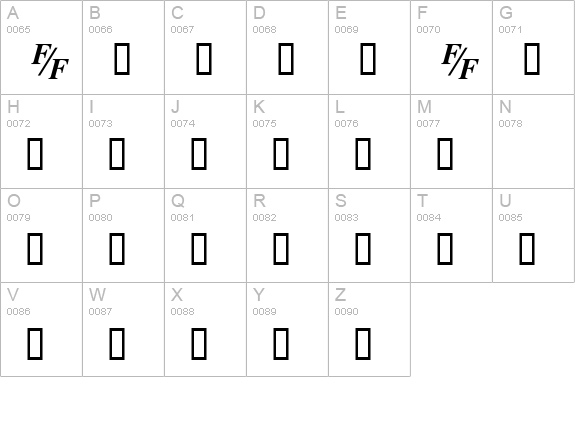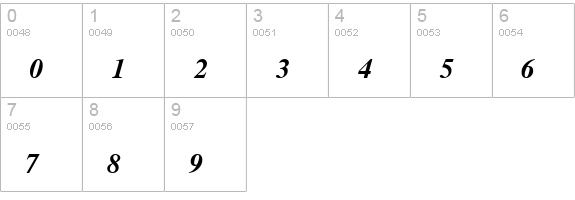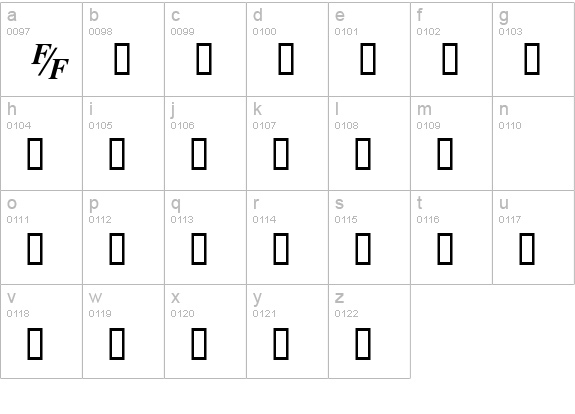
TmsFE BoldItalic Font Details
Introducing TmsFE BoldItalic font, a captivating typeface that effortlessly combines boldness and elegance. With its unique blend of strong curves and slanted design, this font exudes a sense of modernity and sophistication. Whether used for headlines, titles, or even logos, TmsFE BoldItalic is sure to grab attention and make a lasting impression. What makes TmsFE BoldItalic even more enticing is the fact that it is available for free download at FontsMarket.com. Yes, you read that right – this remarkable font can be yours without any cost. Now, you can enhance your design projects without breaking the bank. The versatility of TmsFE BoldItalic is unparalleled. Its bold and italicized form adds a touch of emphasis and style to any text, making it perfect for creative endeavors such as branding, advertising, or typography art. This font effortlessly blends into various design themes, whether you're aiming for a sleek and modern look or a more vintage-inspired aesthetic. With TmsFE BoldItalic, your designs will stand out from the crowd, leaving a lasting impression on your audience. Its legibility and unique character make it suitable for both print and digital media, ensuring that your message is effectively conveyed across various platforms. Don't miss out on the opportunity to enhance your design projects with TmsFE BoldItalic. Download this exceptional font today, free of charge, at FontsMarket.com. Unleash your creativity and elevate your designs to new heights with the bold and elegant TmsFE BoldItalic font.